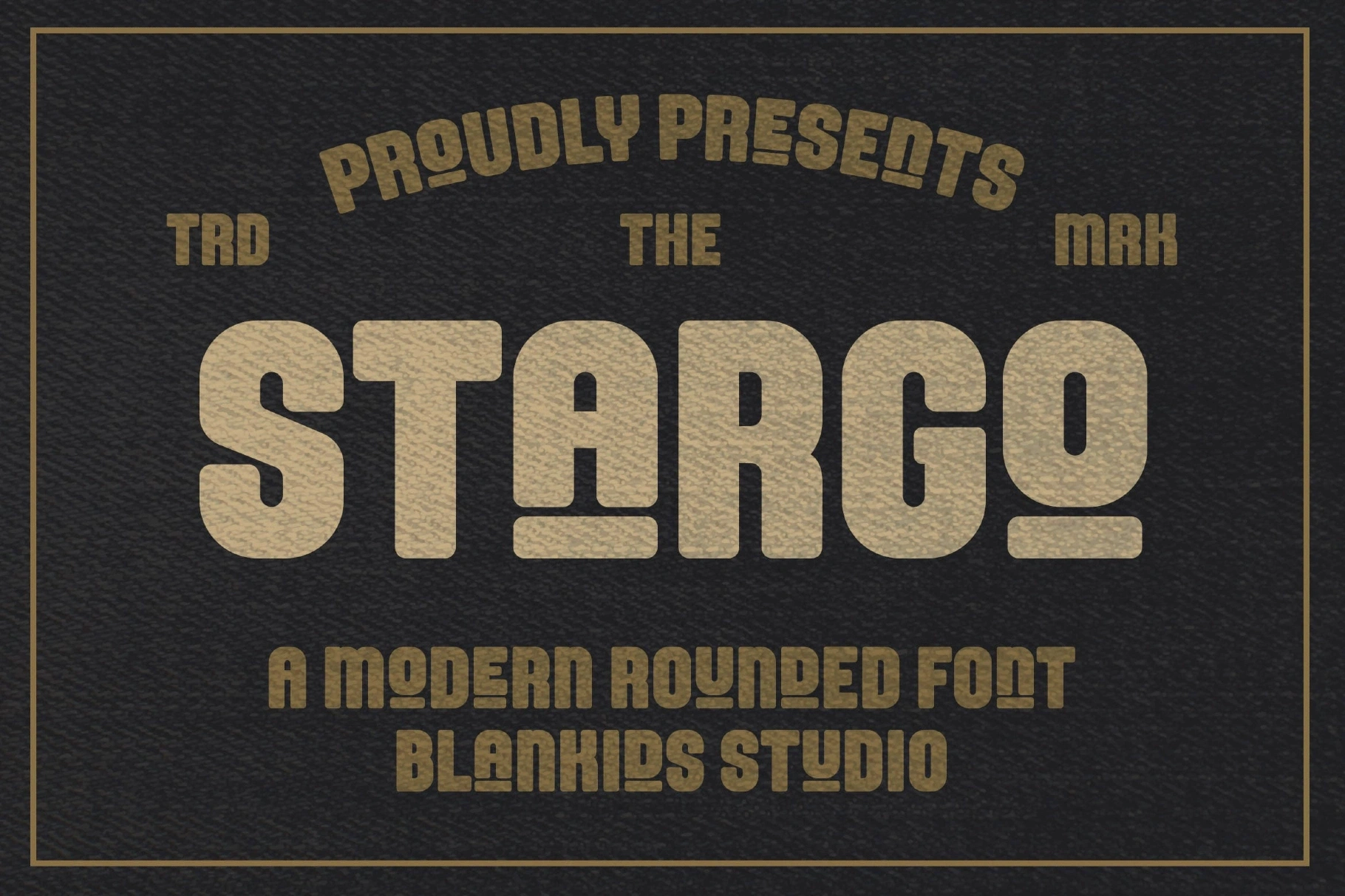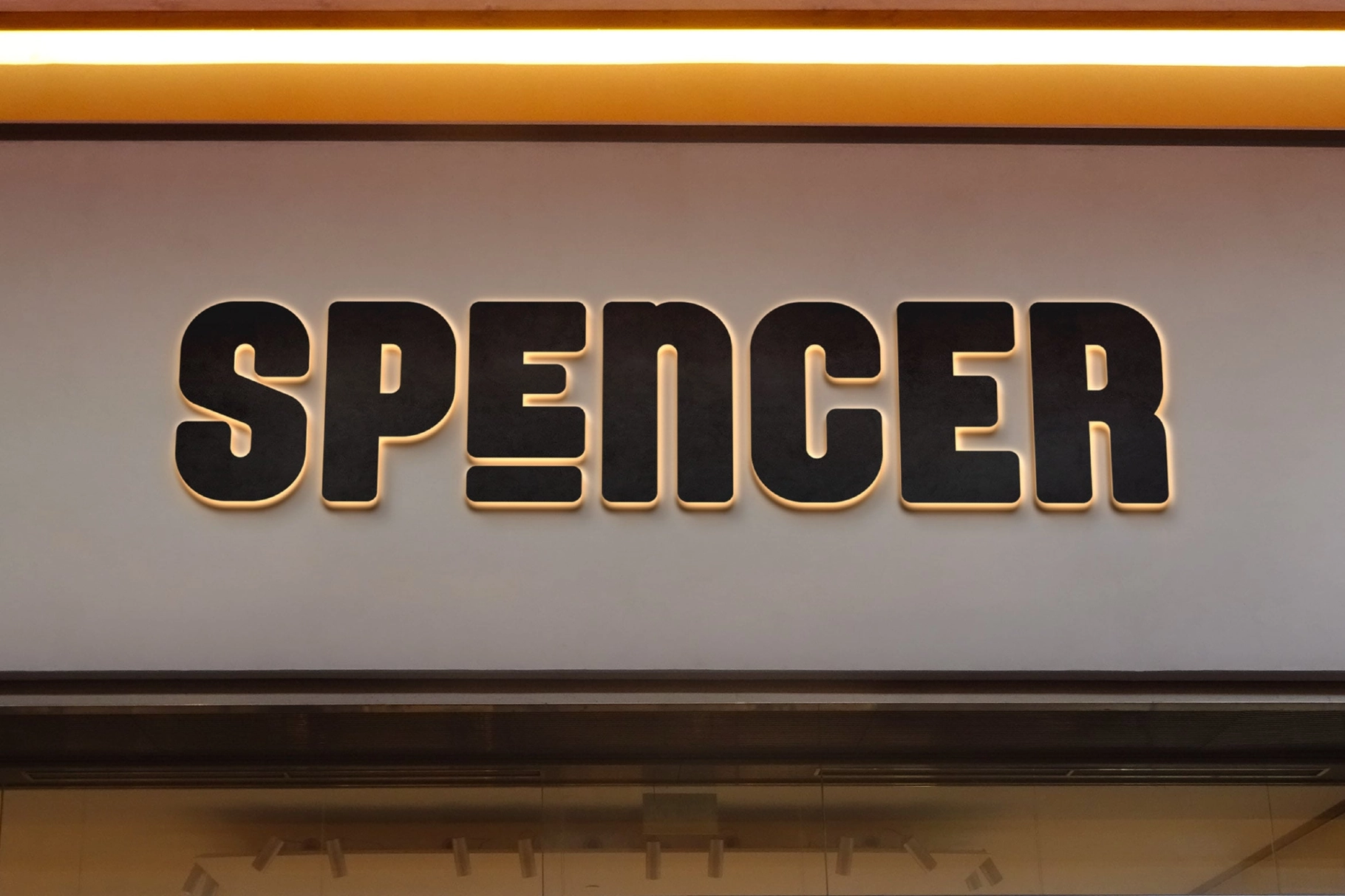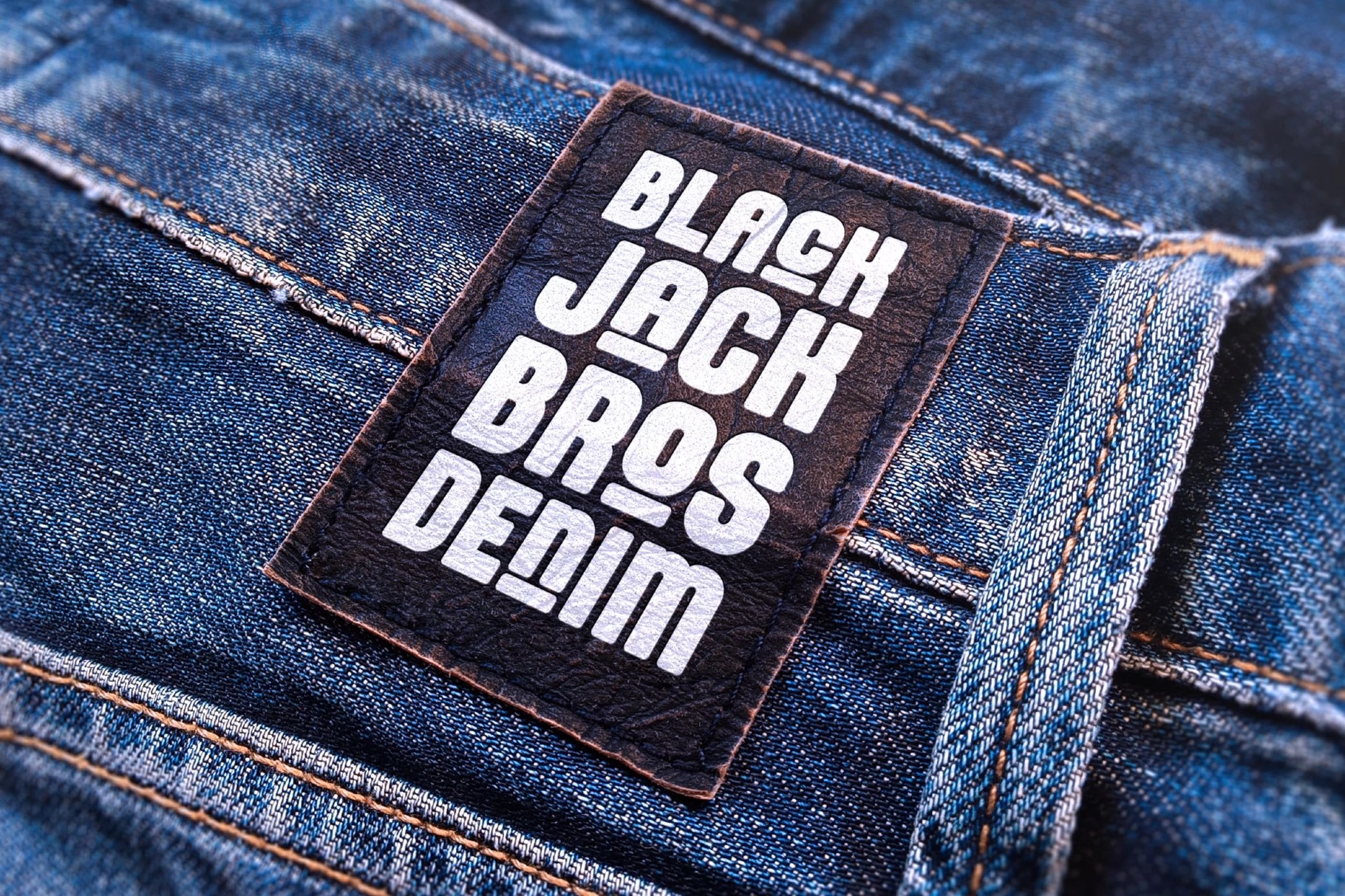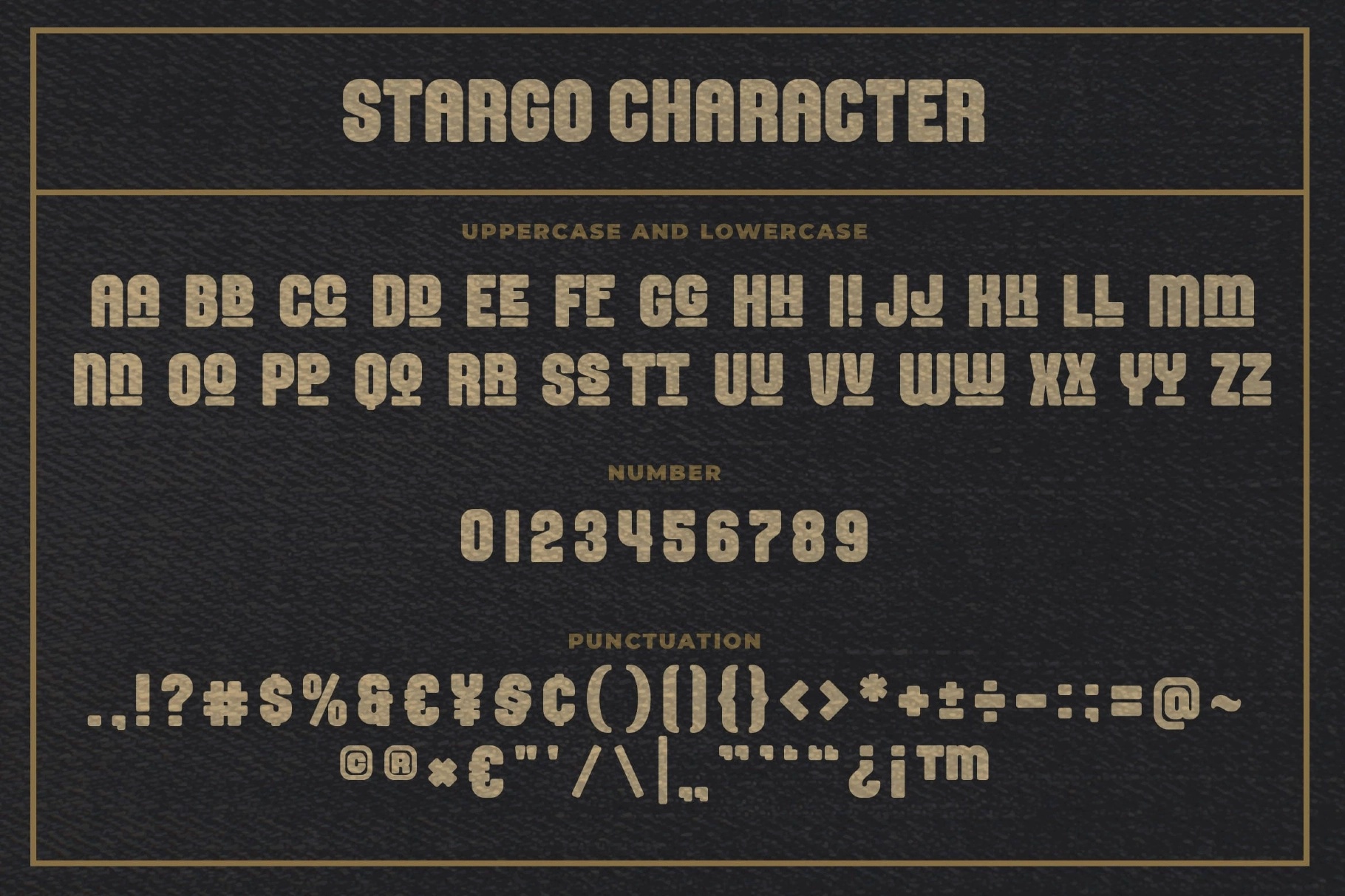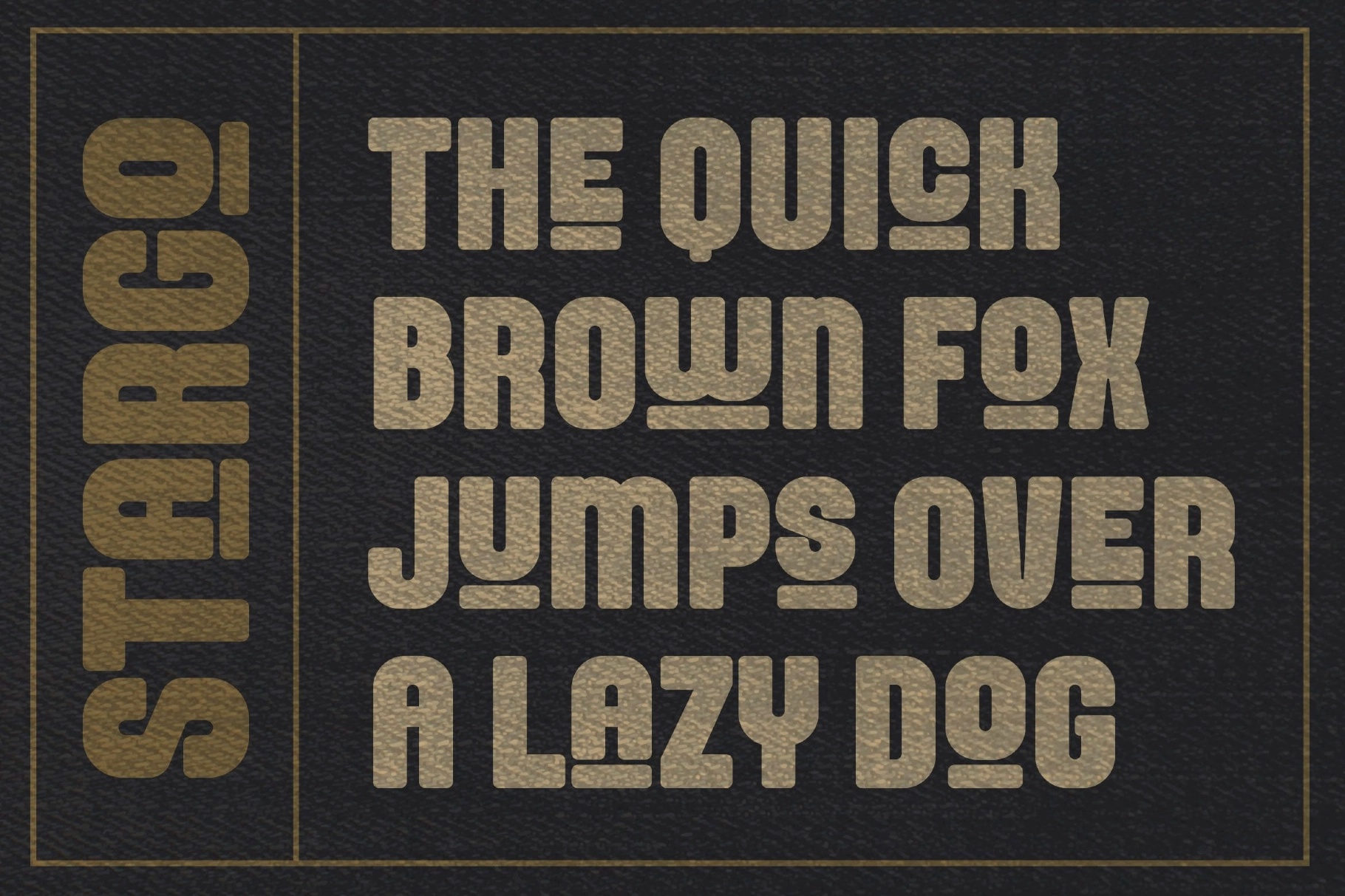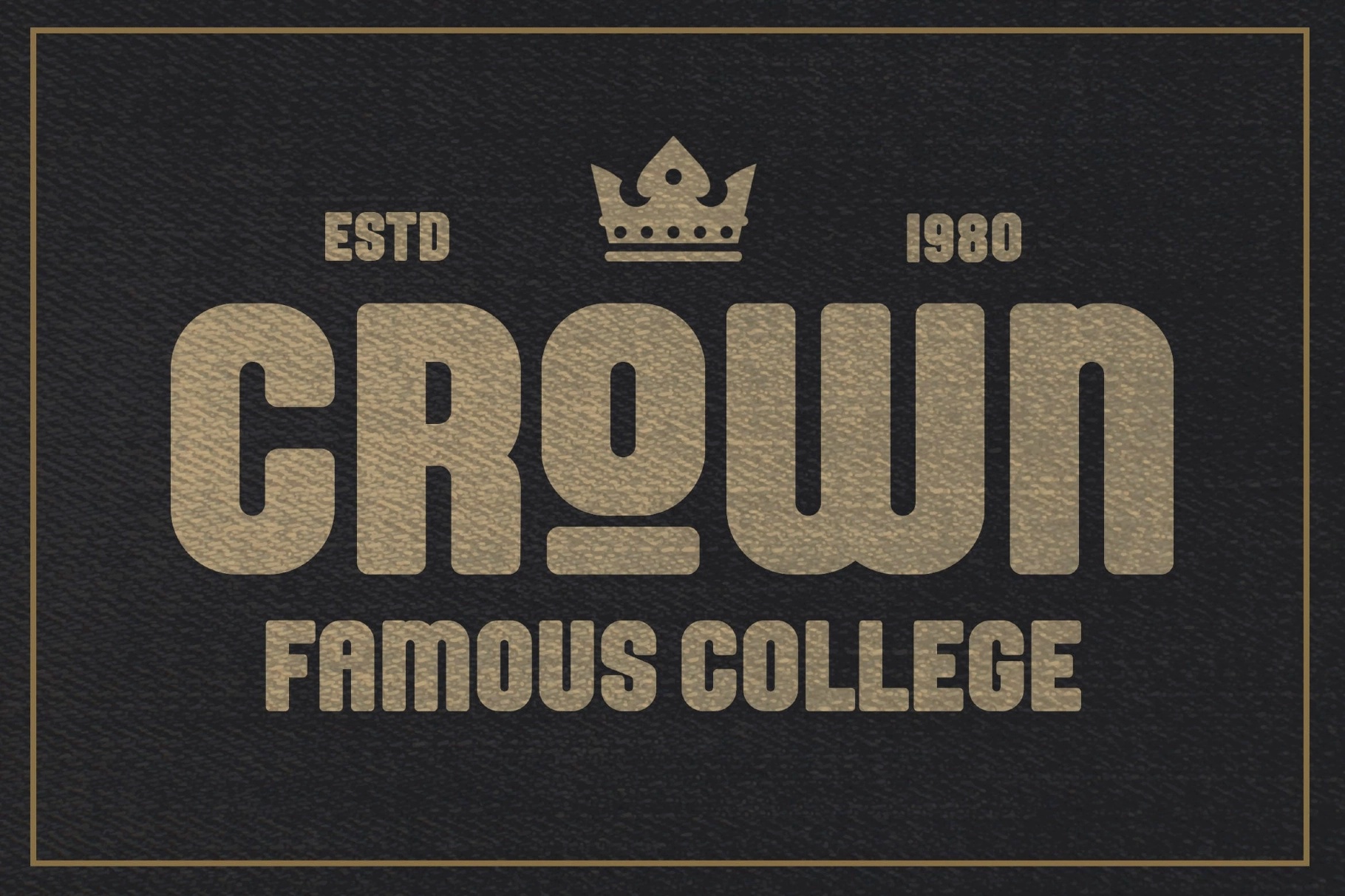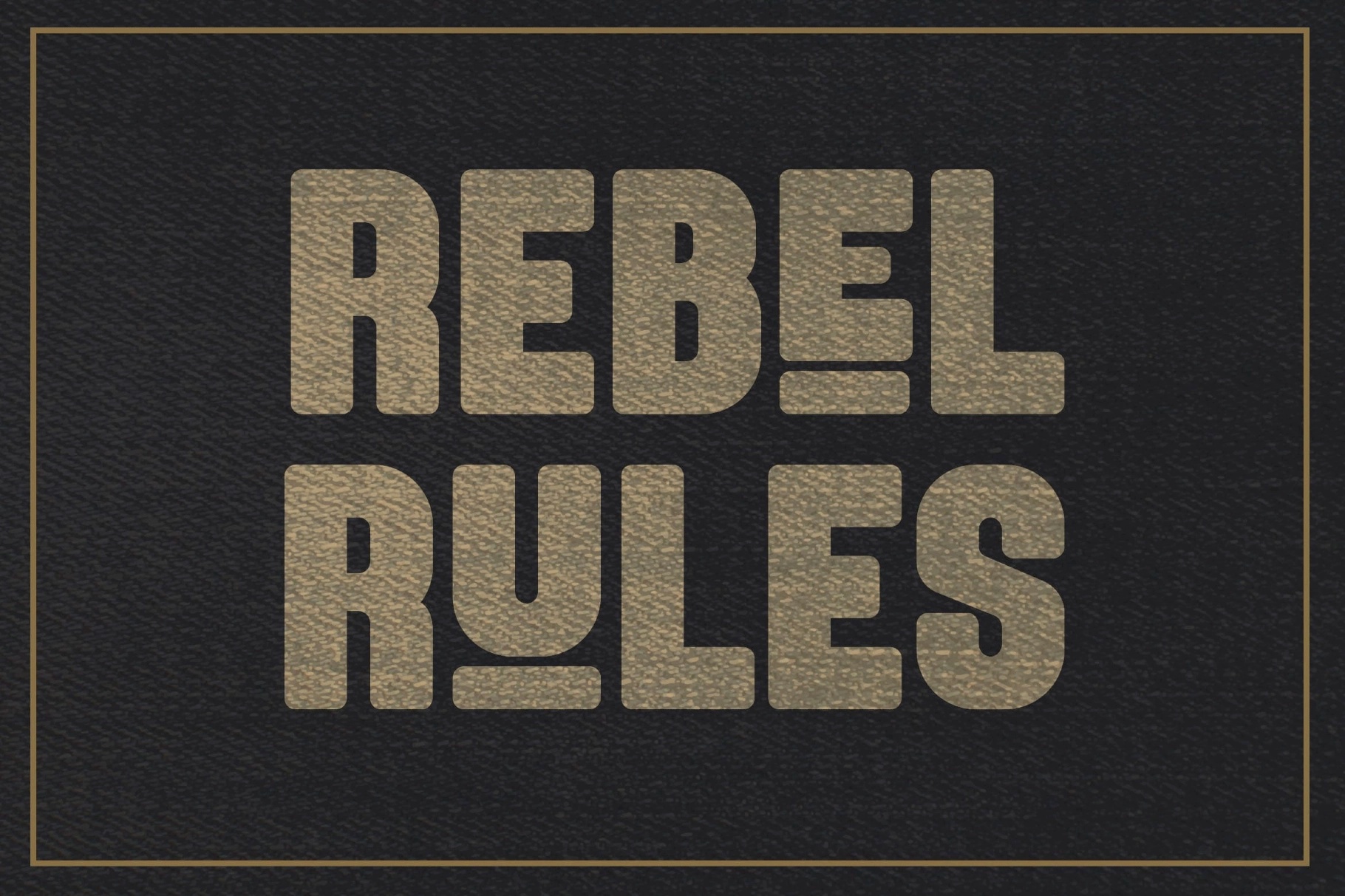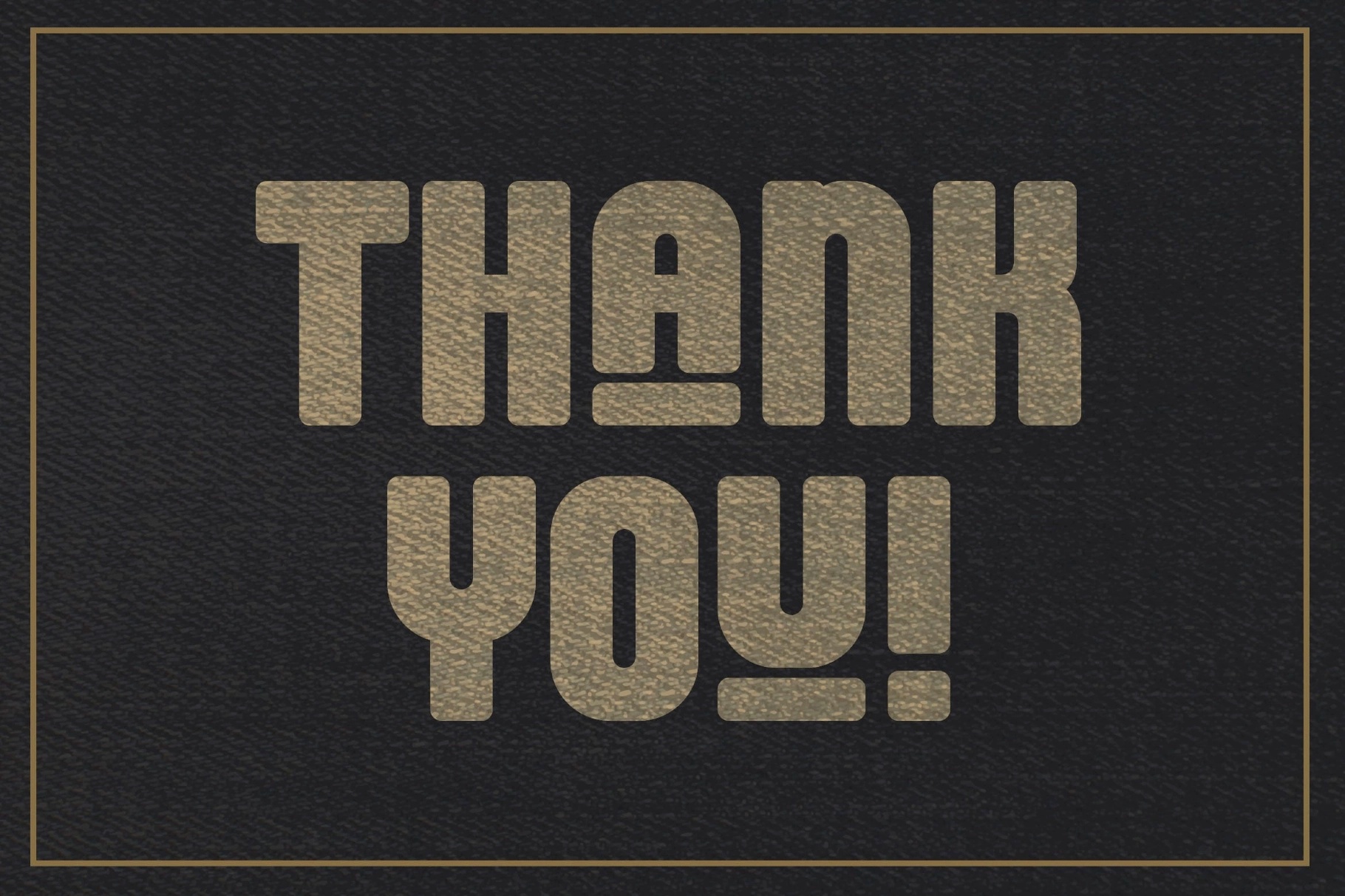
Stargo - Bold Rounded Sans Font
This bold rounded sans font has thick proportions, compact spacing, and sturdy letterforms with a vintage sports-branding attitude. Curved corners, heavy weight, and blocky silhouettes give it strong headline power without making the typography look stiff.
Stargo is a sharp choice for team identities, varsity graphics, posters, apparel labels, gaming titles, diner menus, automotive branding, gym merchandise, sticker packs, album covers, barbershop branding, racing graphics, social media headers, beer labels, mascot logos, YouTube thumbnails, packaging, and more.